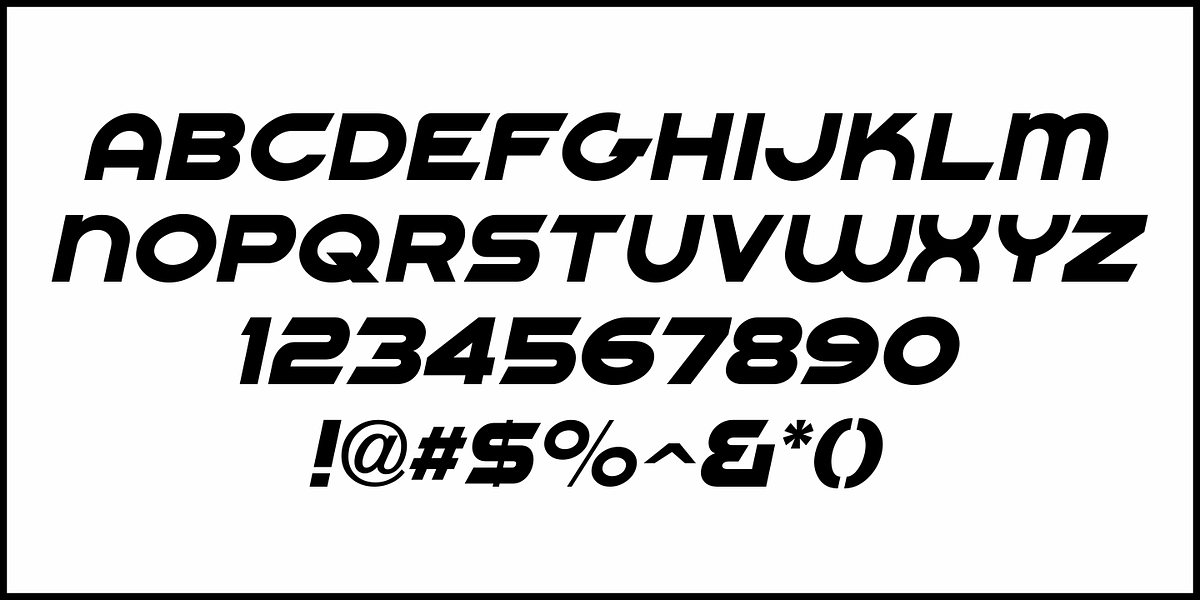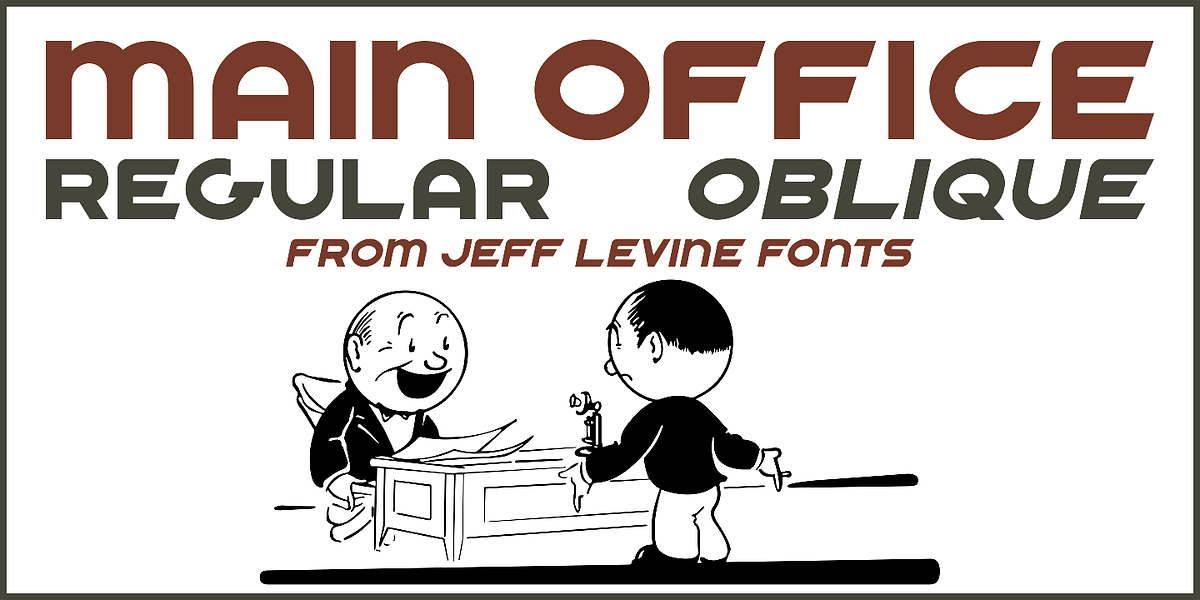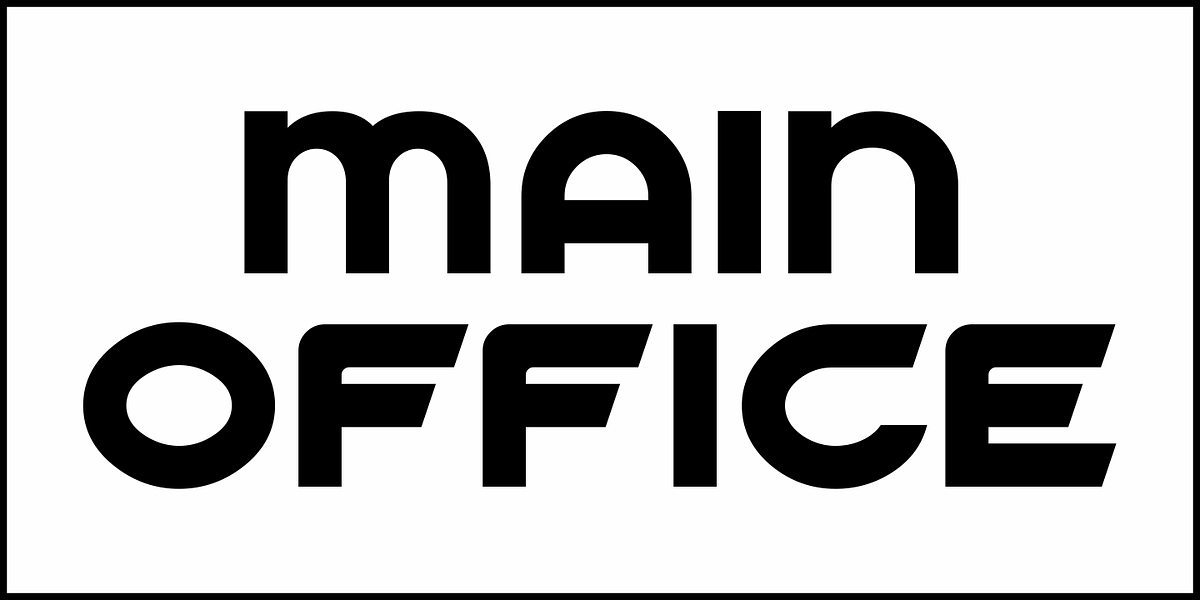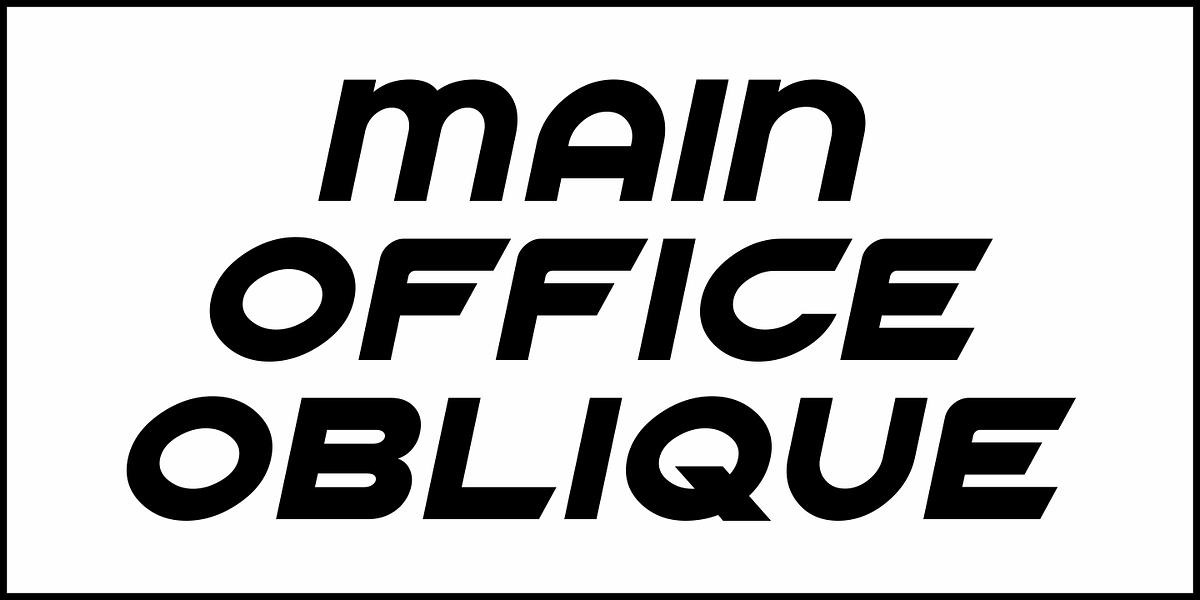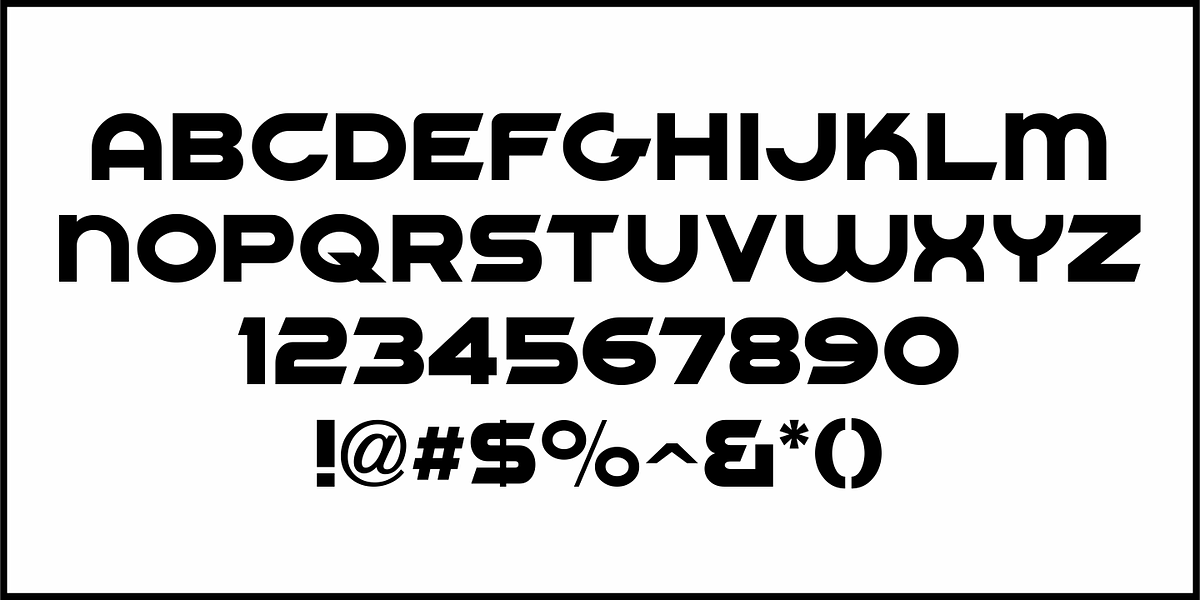
Main Office JNL
While viewing some vintage film footage taken while driving around Los Angeles in the late 1940s or early 1950s, lettering was spotted that offered up a great typographic project.
A sign on a building housing the Peniel Mission Headquarters was hand lettered in an extra bold sans serif style that was Art Deco for its time, but forecast the futuristic techno style of the 1980s.
This is now available as Main Office JNL, in both regular and oblique versions.
According to Wikipedia: "The Peniel Mission was an interdenominational holiness rescue mission that was started in Los Angeles, California, on 11 November 1886 by Theodore Pollock Ferguson (1853–1920) and Manie Payne Ferguson (born 1850; died 8 June 1932). It was dissolved in 1949."